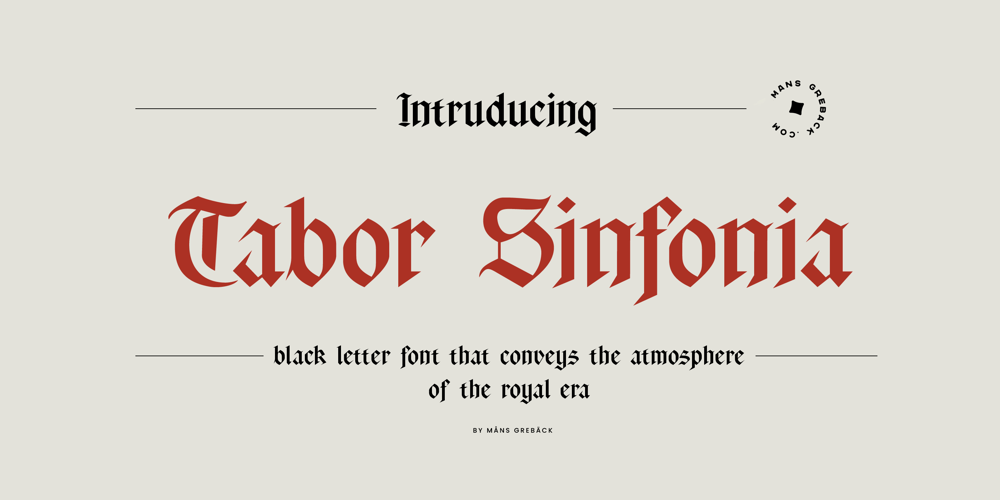
Tabor Sinfonia Font Family was designed by Måns Grebäck and published by Mans Greback. Tabor Sinfonia contains 4 styles and family package options. Tabor Sinfonia is a blackletter typeface that marries the historic beauty of Gothic script with the rhythm and harmony of music. This decorative font is perfect for logotypes, artistic projects, and designs that require a touch of vintage elegance.The inspiration for Tabor Sinfonia came from a fascinating combination of medieval manuscripts and musical compositions.